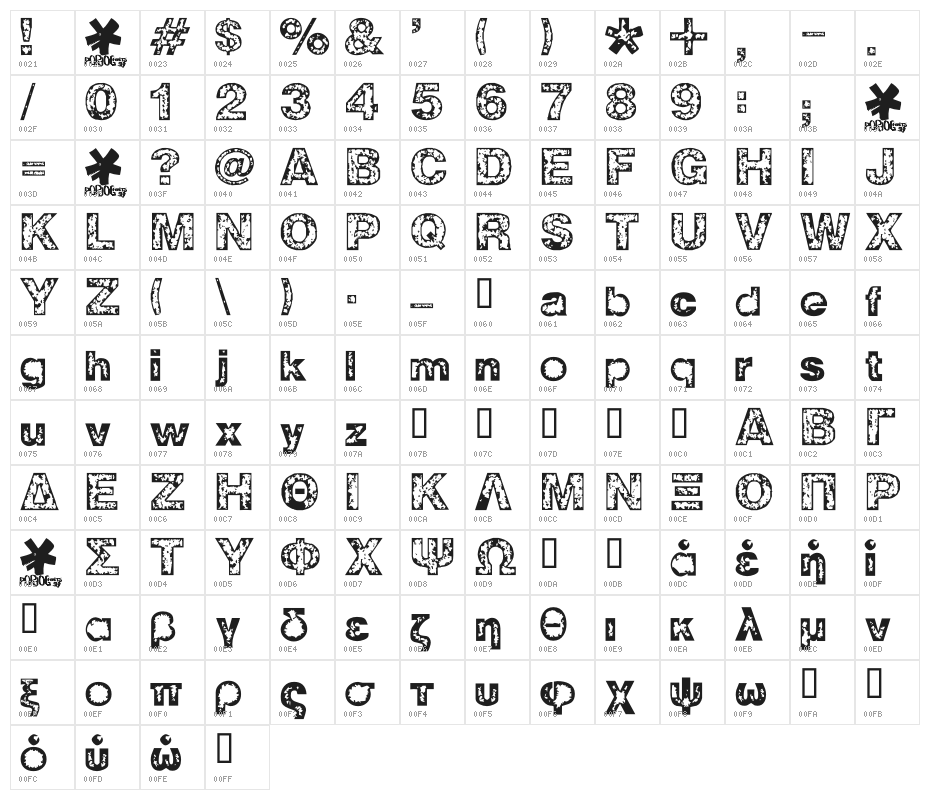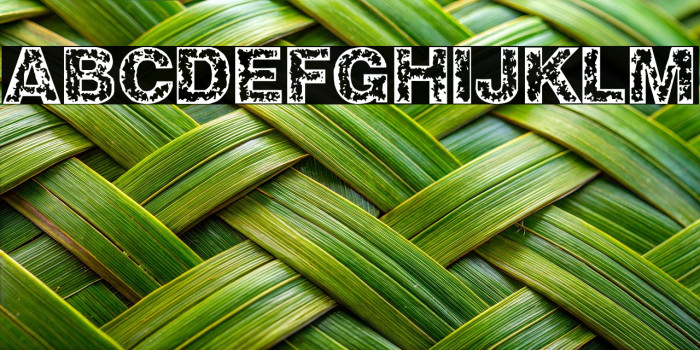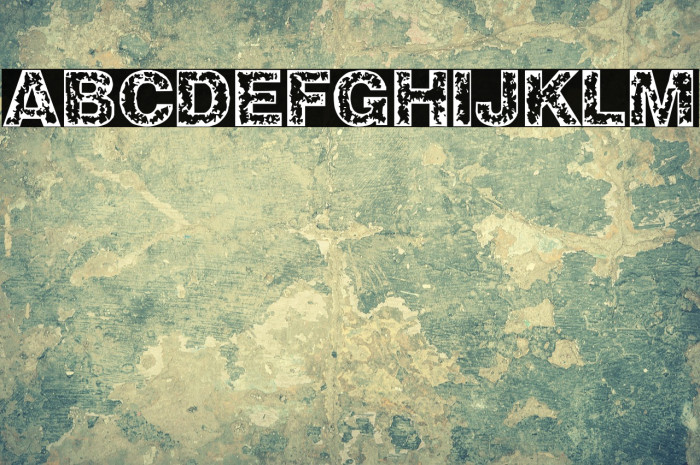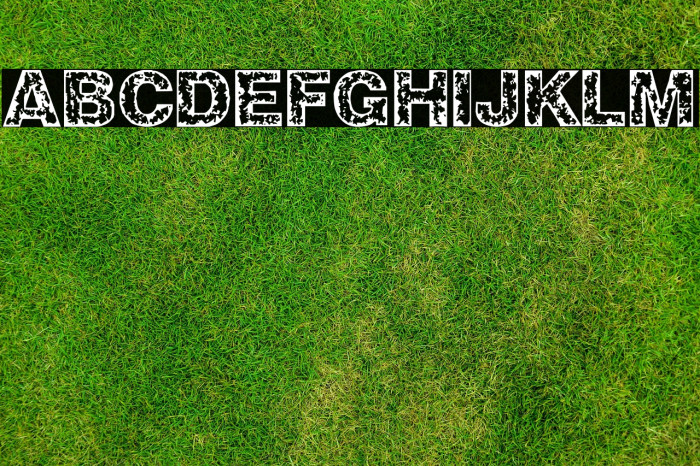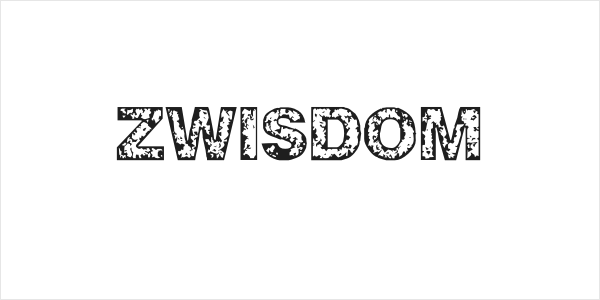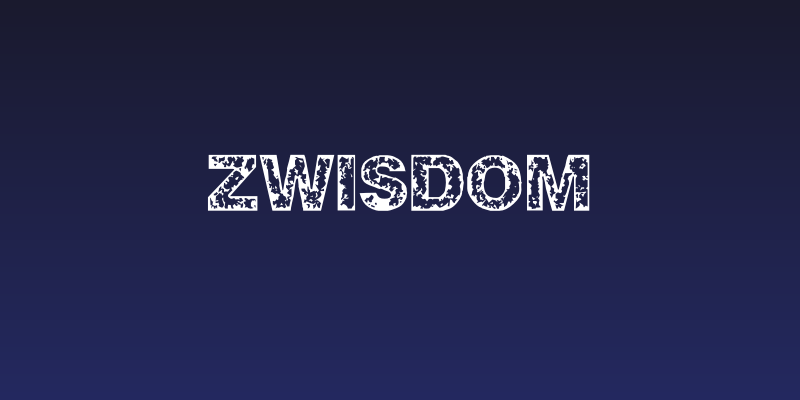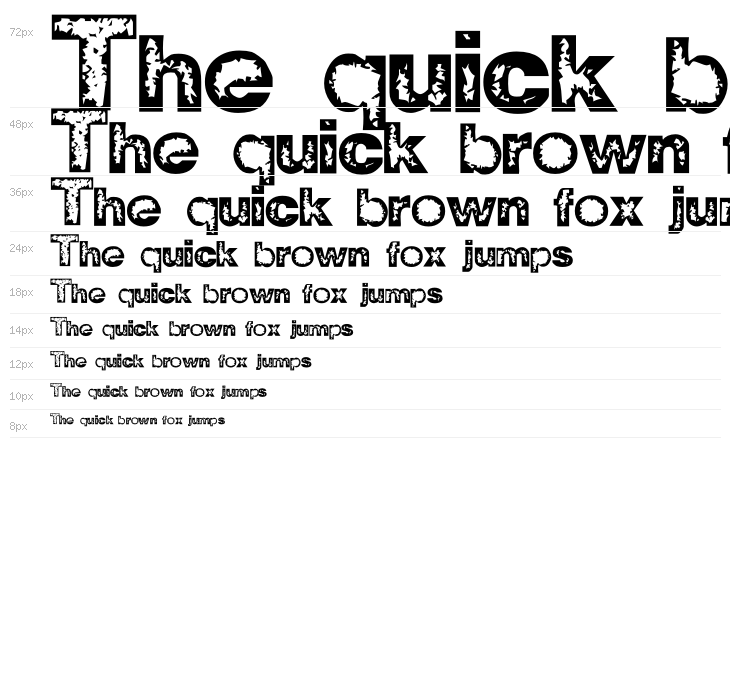
ZWISDOM Font
✎ Messy
| Stile generale | Edgy, Grunge |
| Progetti proposti | Ideal for posters, album covers, branding for alternative or punk-themed events. |